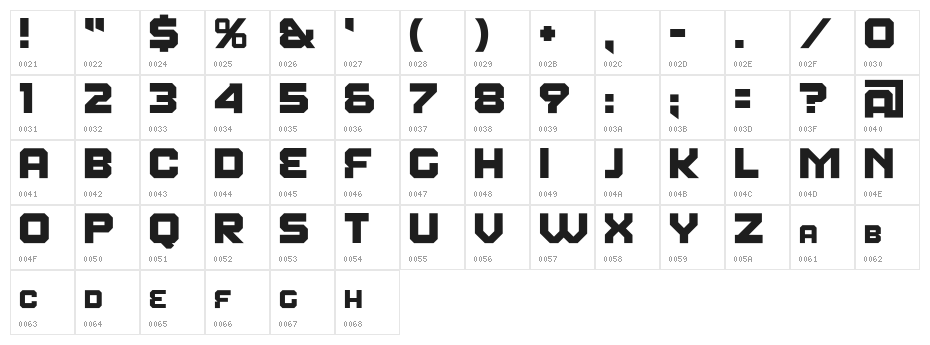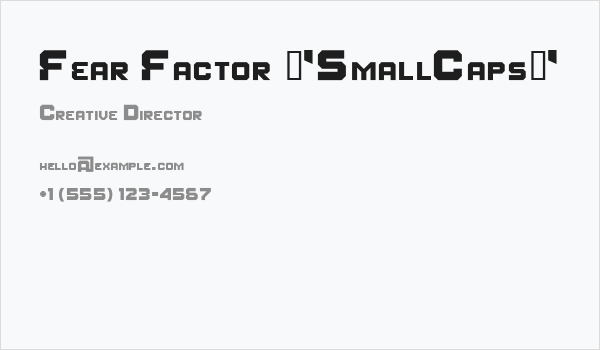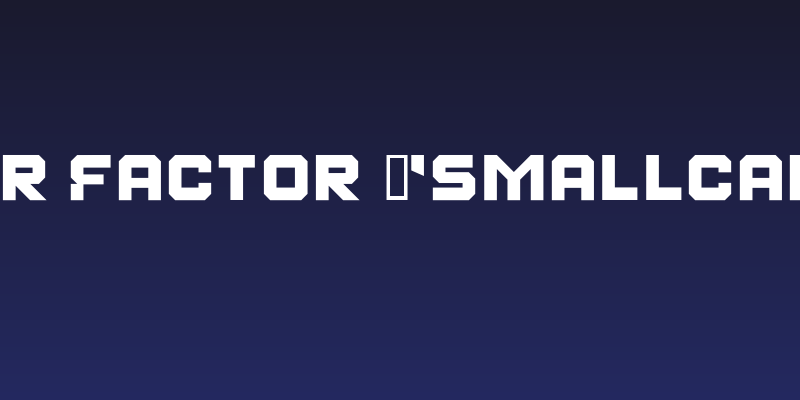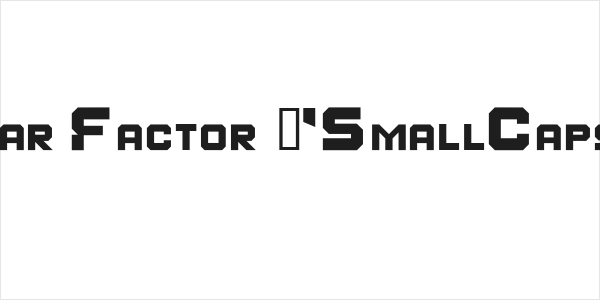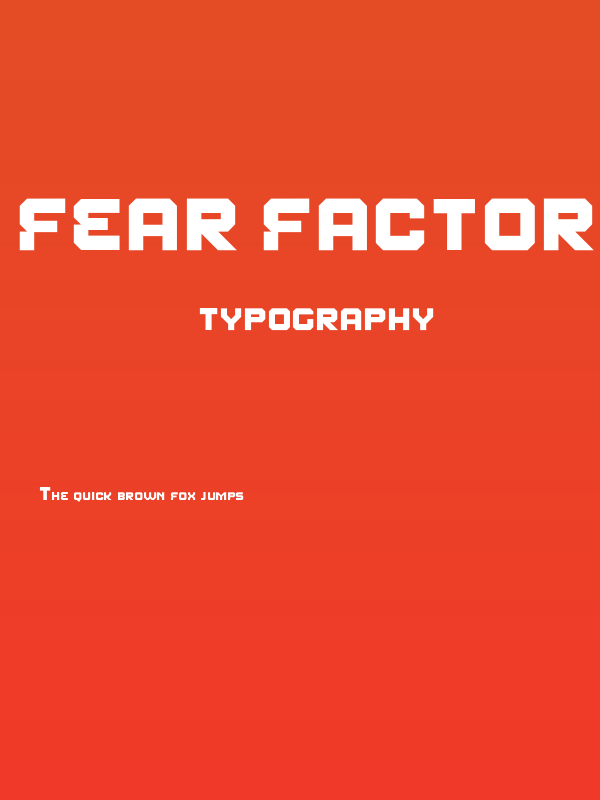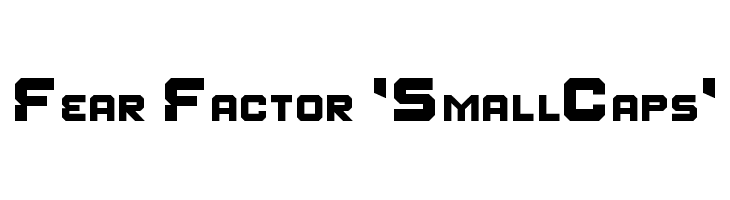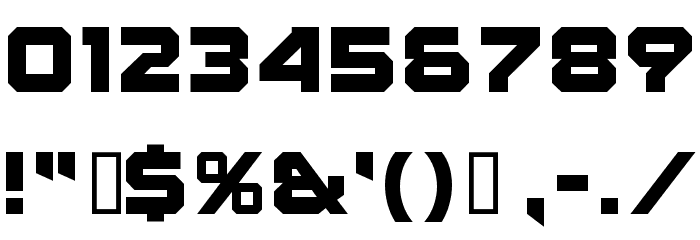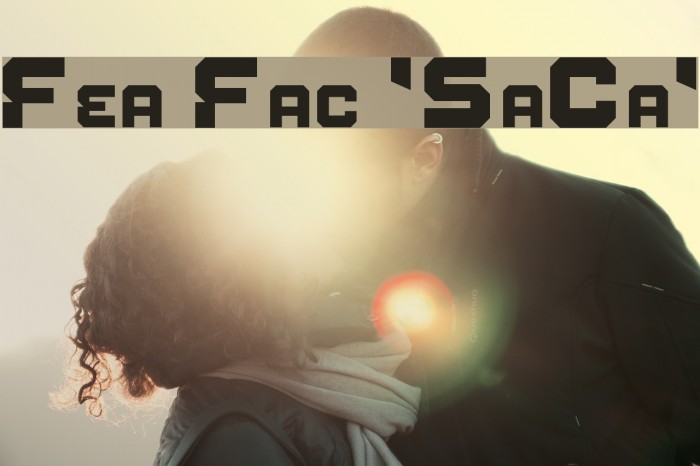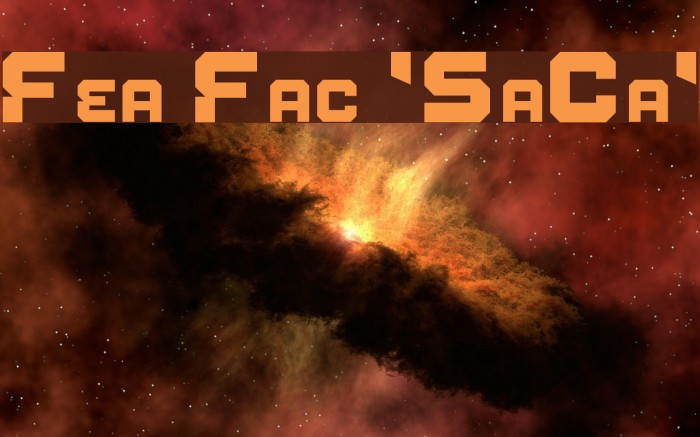
Fear Factor 'SmallCaps' Font
Fear Factor 'SmallCaps' Description
This font features a bold and geometric design with strong, angular lines and a modern aesthetic. The uppercase letters are uniform in height, creating a cohesive and structured appearance. The characters exhibit a blocky style with sharp edges, giving them a robust and impactful look. The numbers and special characters maintain the same boldness, ensuring consistency throughout. This font's design is ideal for making a statement, with its high visibility and striking presence.